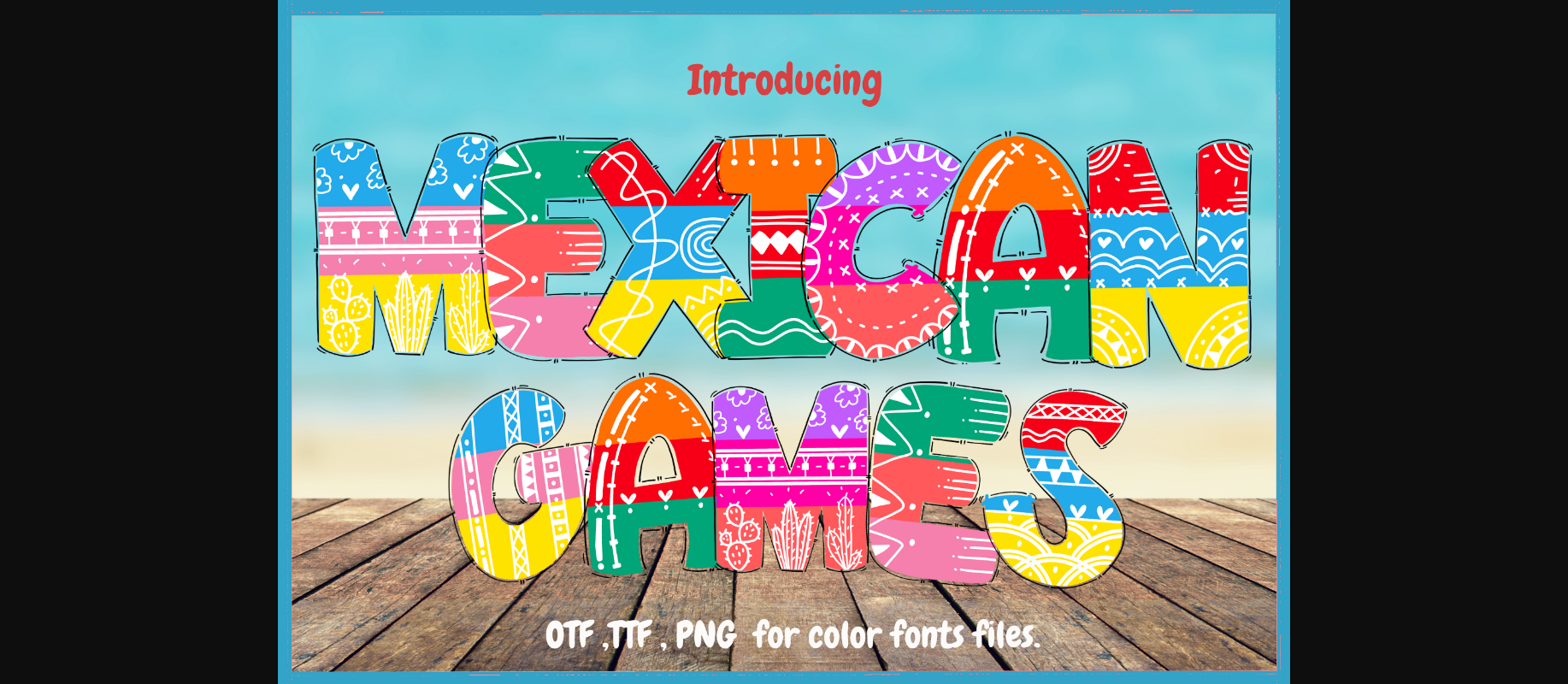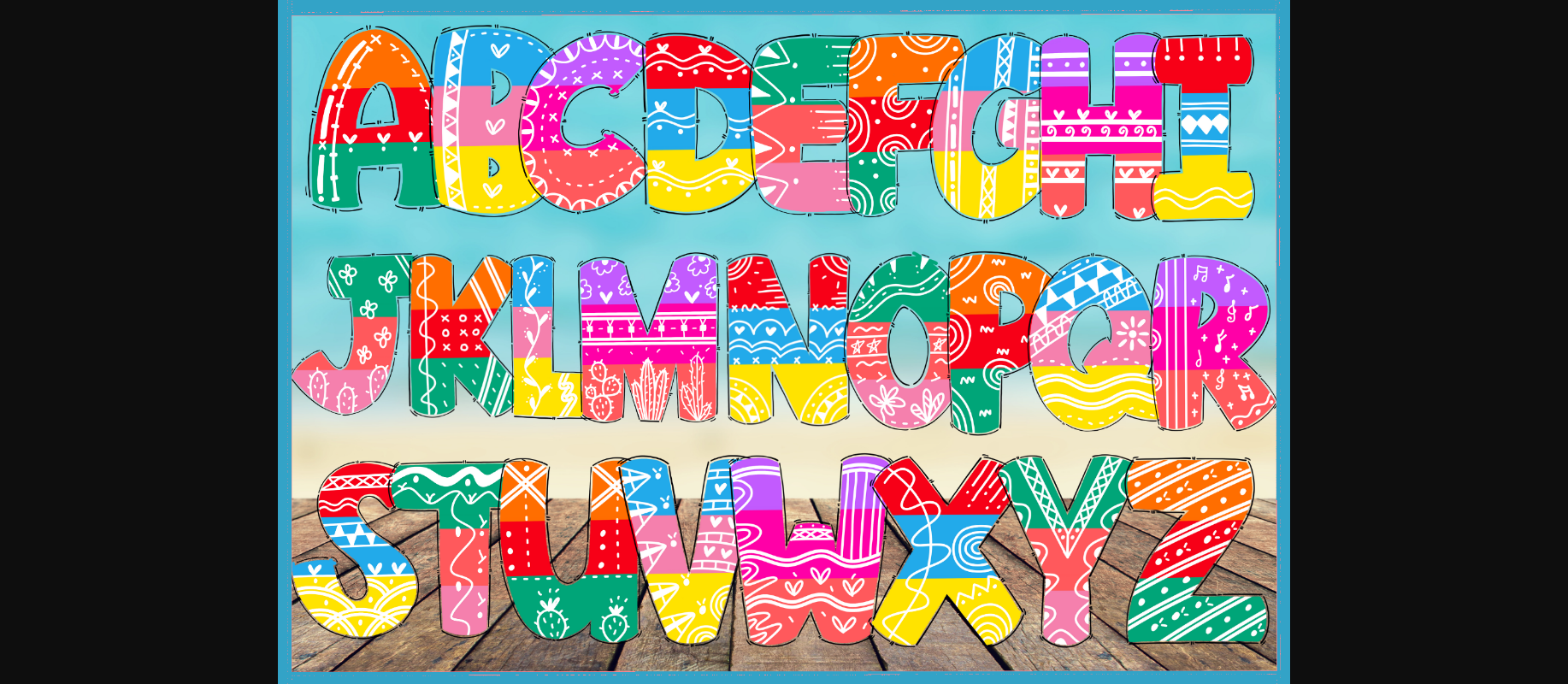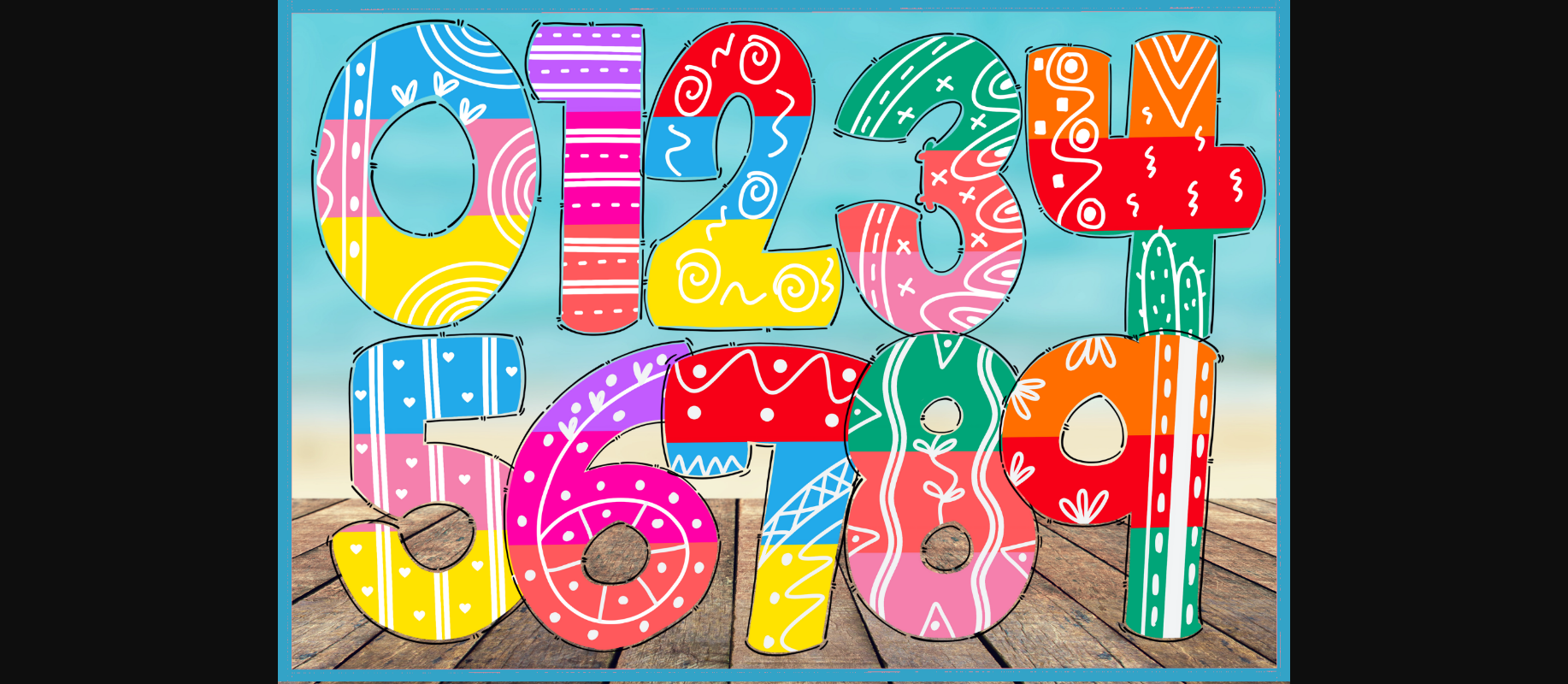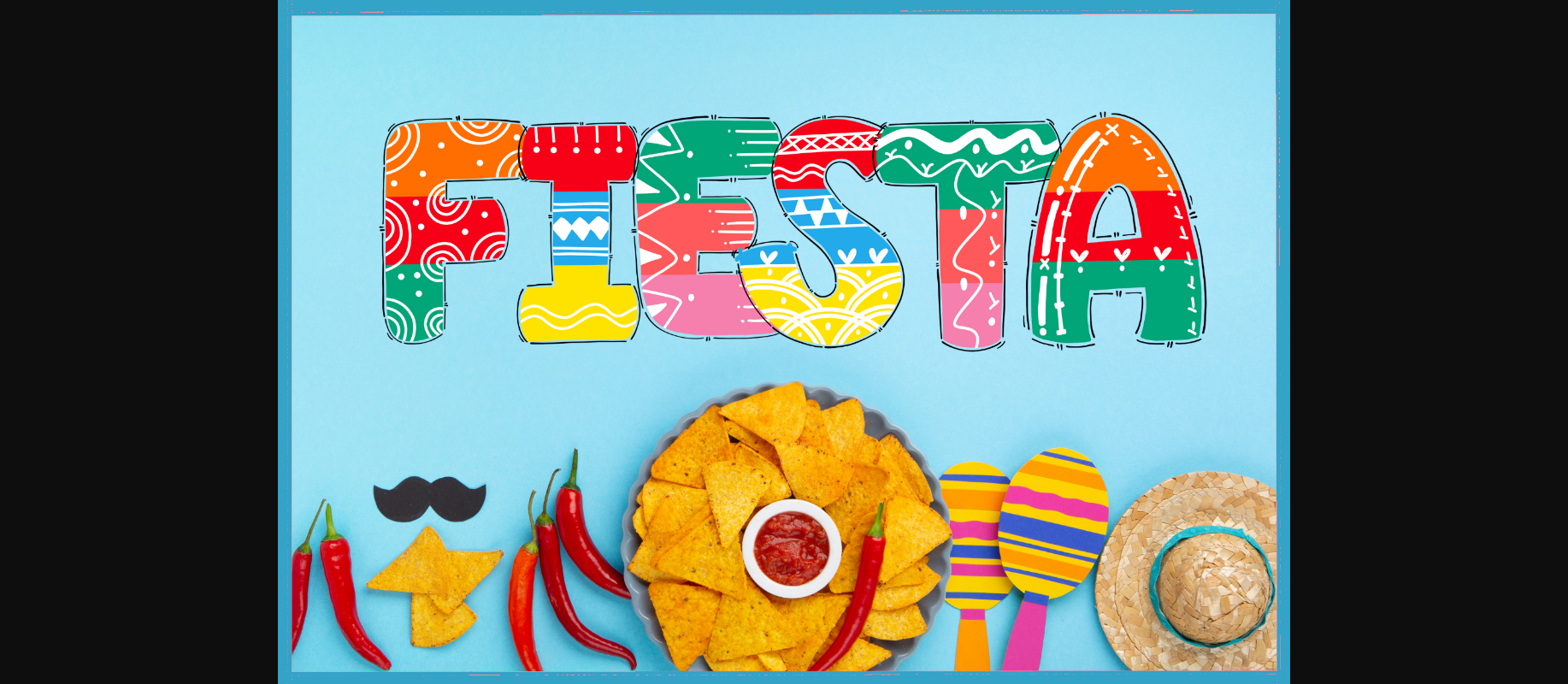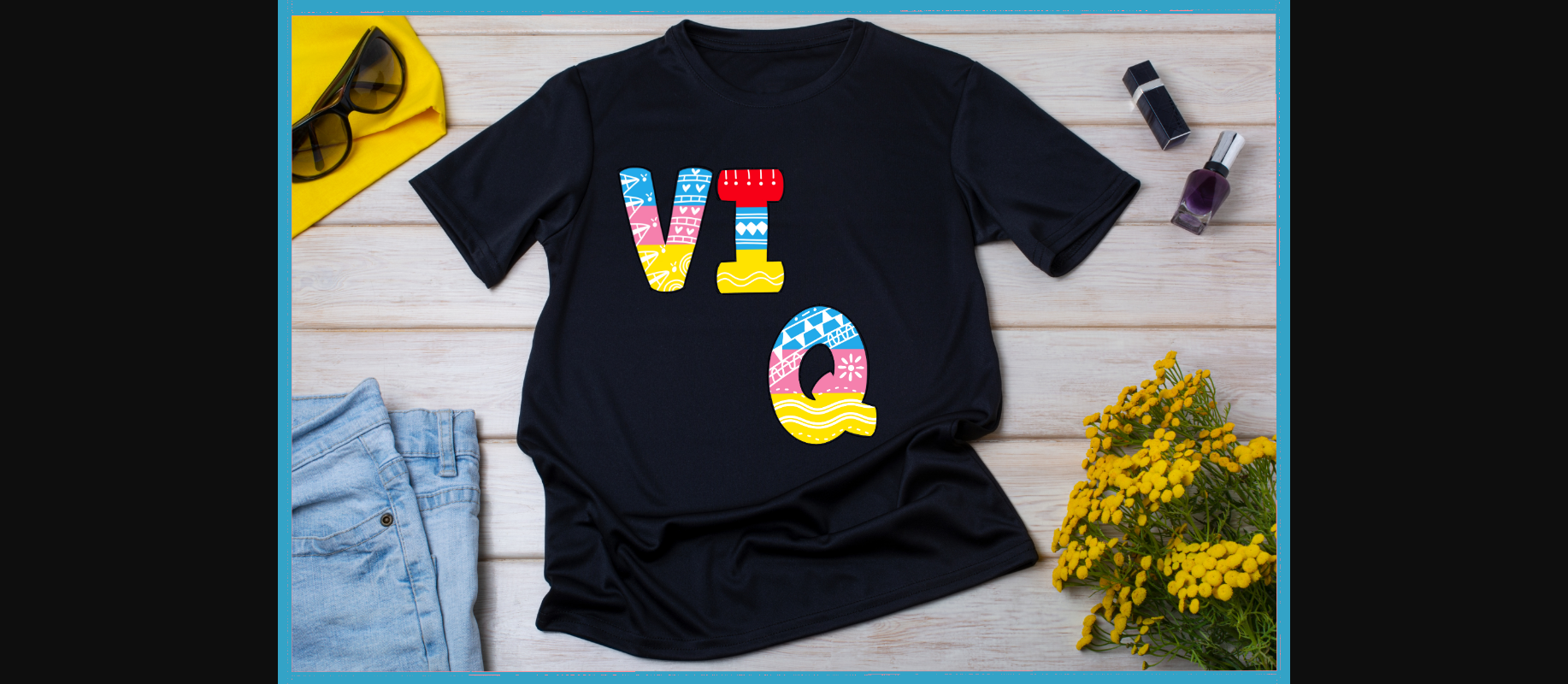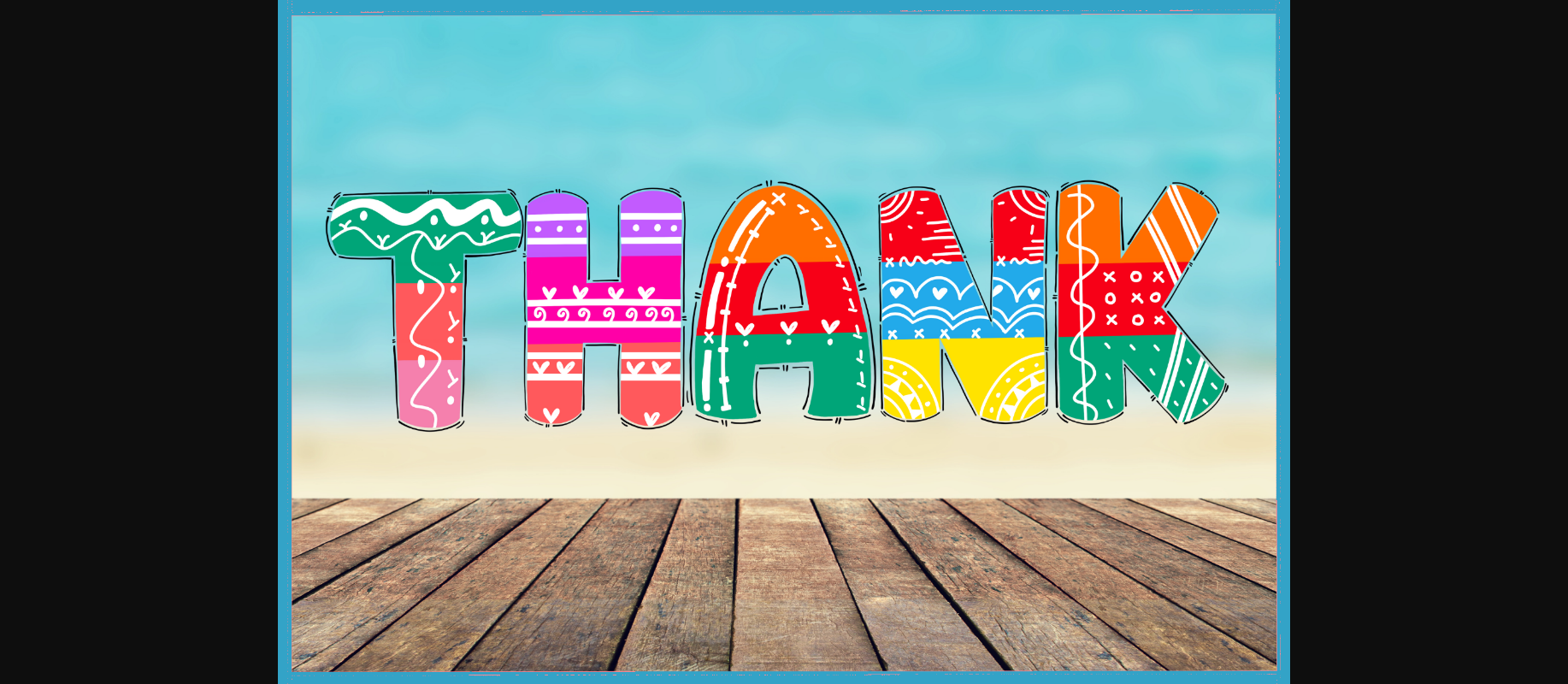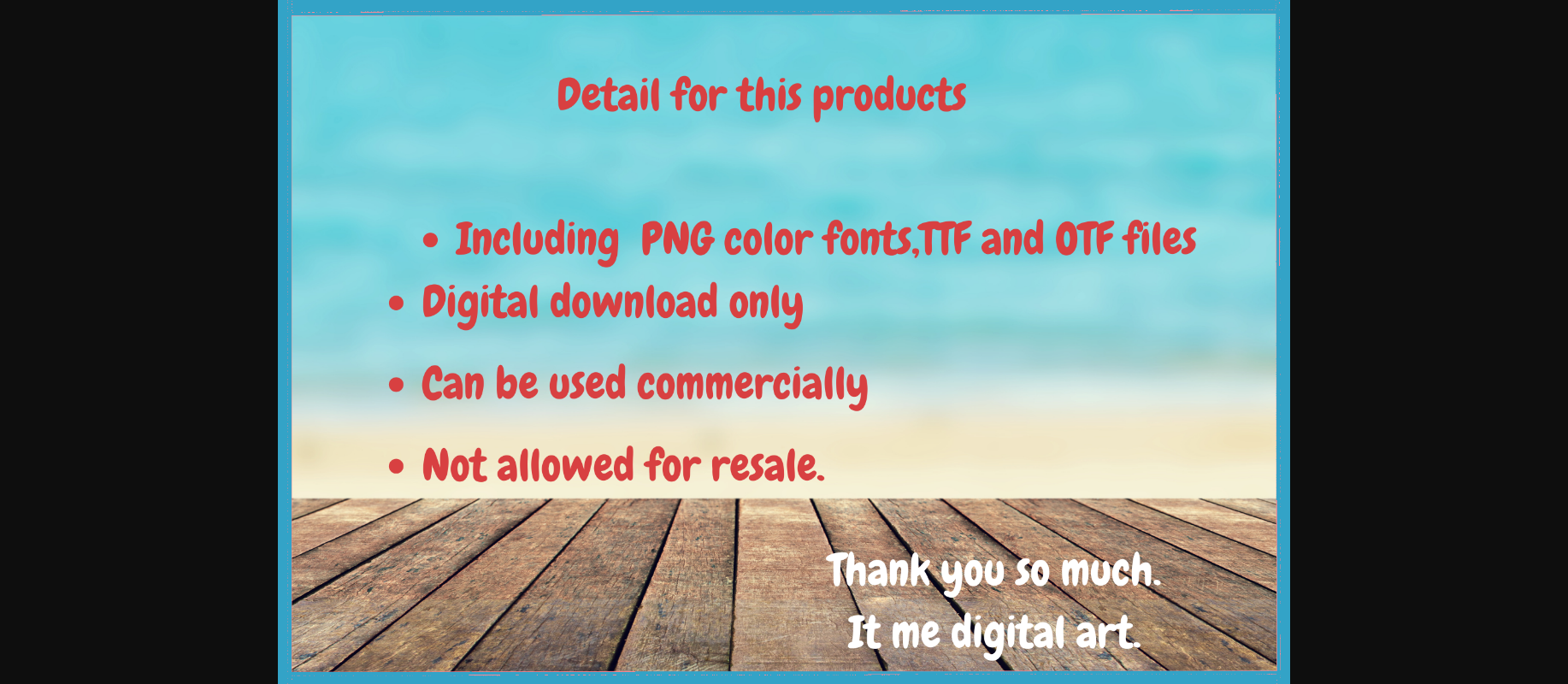
Mexican Font
About Mexican Font
Mexican is a cute and quirky color font. It will add an incredibly joyful touch to your designs. Add this beautiful display font to each of your creative ideas and notice how it makes them stand out!